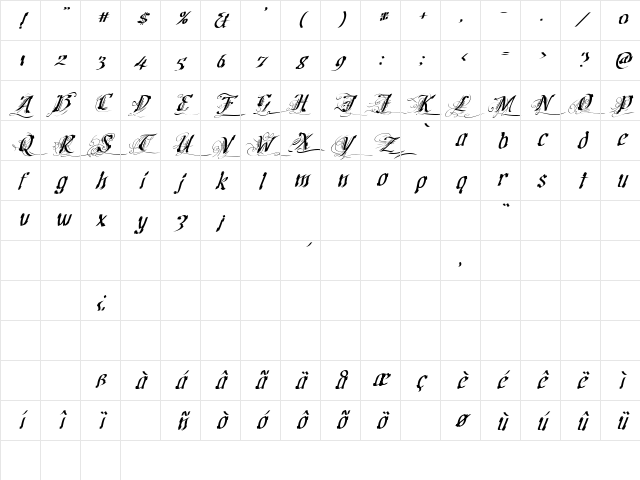
Cretino Regular Free Font
Cretino Regular
Cretino Family
Cretino Regular
Design Context for Cretino
Cretino is a composed and adaptable typeface that performs quietly and consistently across a wide range of design contexts.